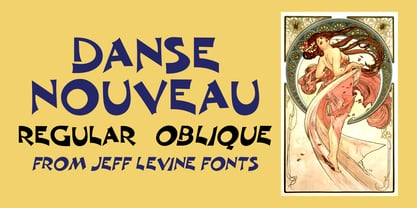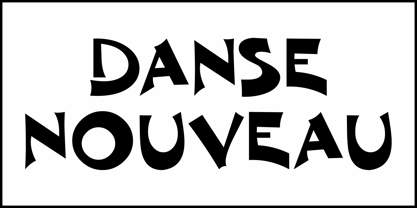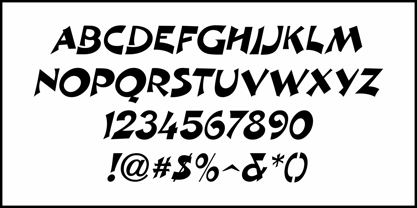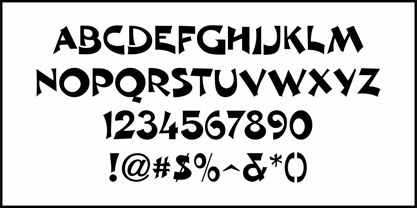
Danse Nouveau JNL
by Jeff Levine
From the 1909 edition of the German publication "Shriften Atlas" ("Atlas of Writings") by Ludwig Petzendorfer comes a wonderfully casual and playful Art Nouveau type design reminiscent of the poster art of Alphonse Mucha and similar artists and this original lettering example is now available digitally as Danse Nouveau JNL in both regular and oblique versions.. Visit Jeff Levine for more unique type designs.